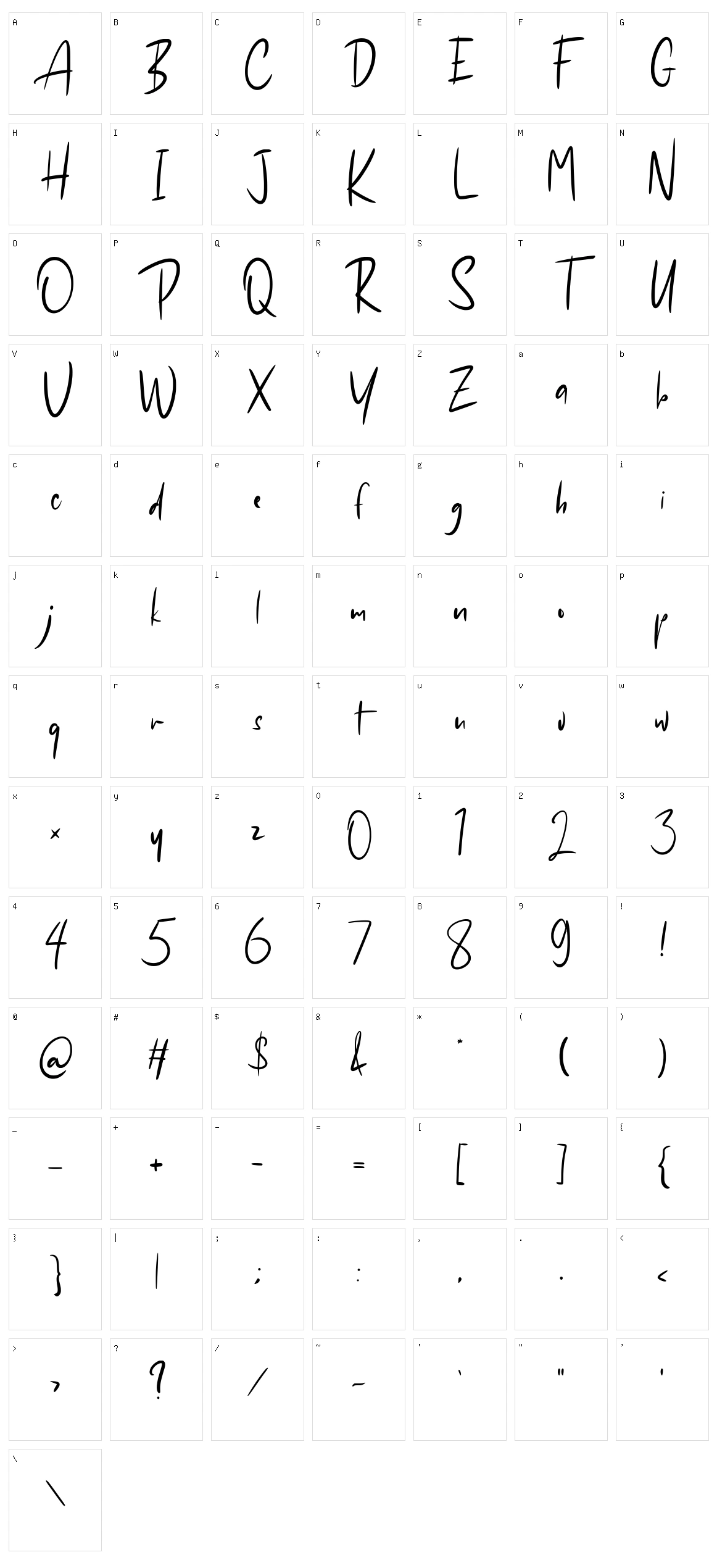
The free font Beaversa is carefully designed by InspiraType, showcasing a thoughtful balance of creativity and usability and falls under the Script font style. When you download the ZIP file, it contains only 48.11 KB of font files, making it lightweight and quick to download. Please review the license details below to understand permitted usage and distribution rights. If license information is not available, we recommend using this font for personal projects only or contacting the author directly for commercial usage permissions.